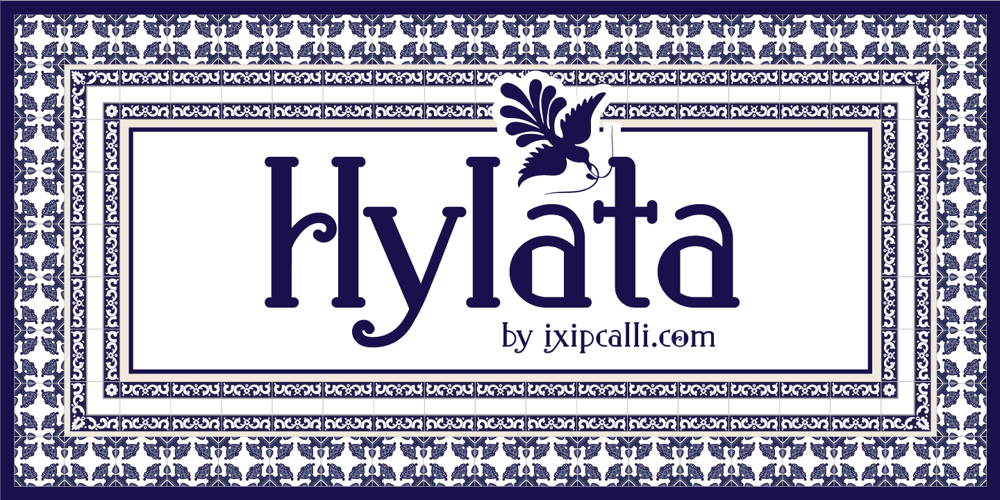
Hylata Font Family was designed by Francisco Arellano and published by Ixipcalli. Hylata contains 2 styles and family package options. Hylata is a typeface inspired by the Mexican colonial style of the 50s, especially from the state of Puebla. Its design is very characteristic of the local talavera crafts. The typography presents “blacksmith” type styles, which is ideal to represent the characteristic provincial style of Mexico.